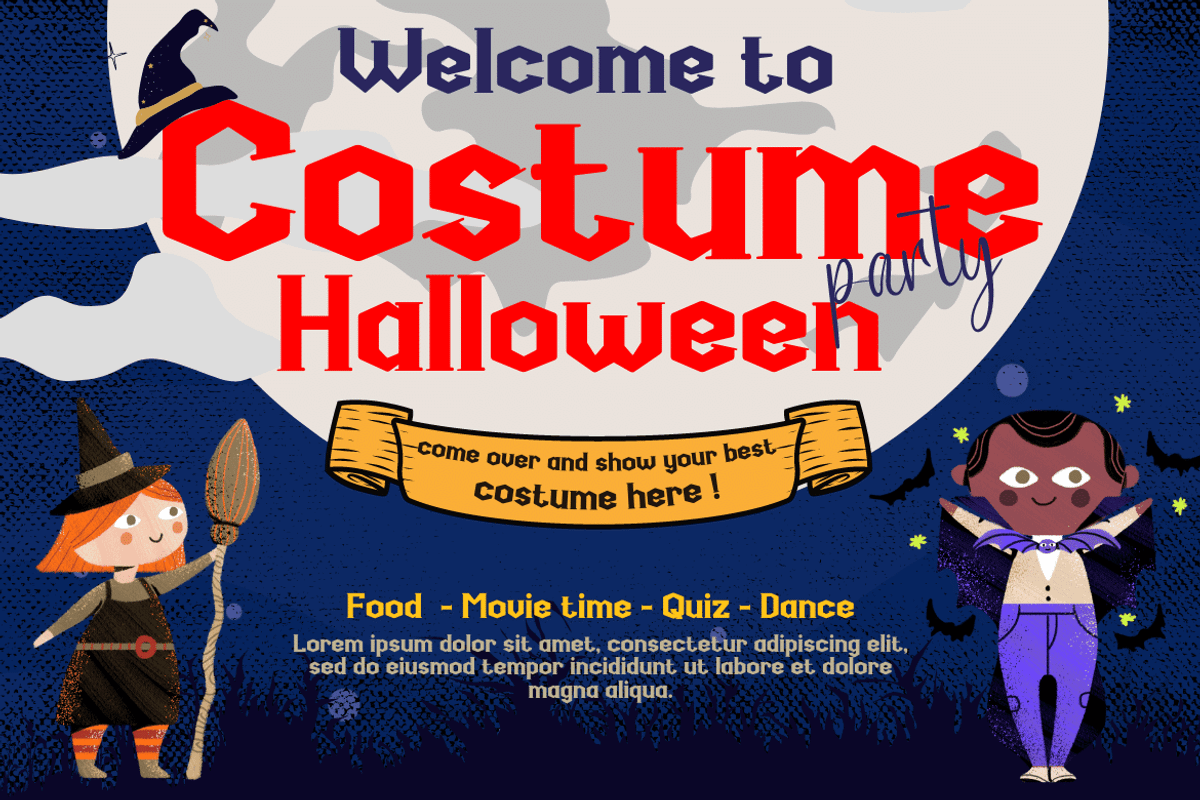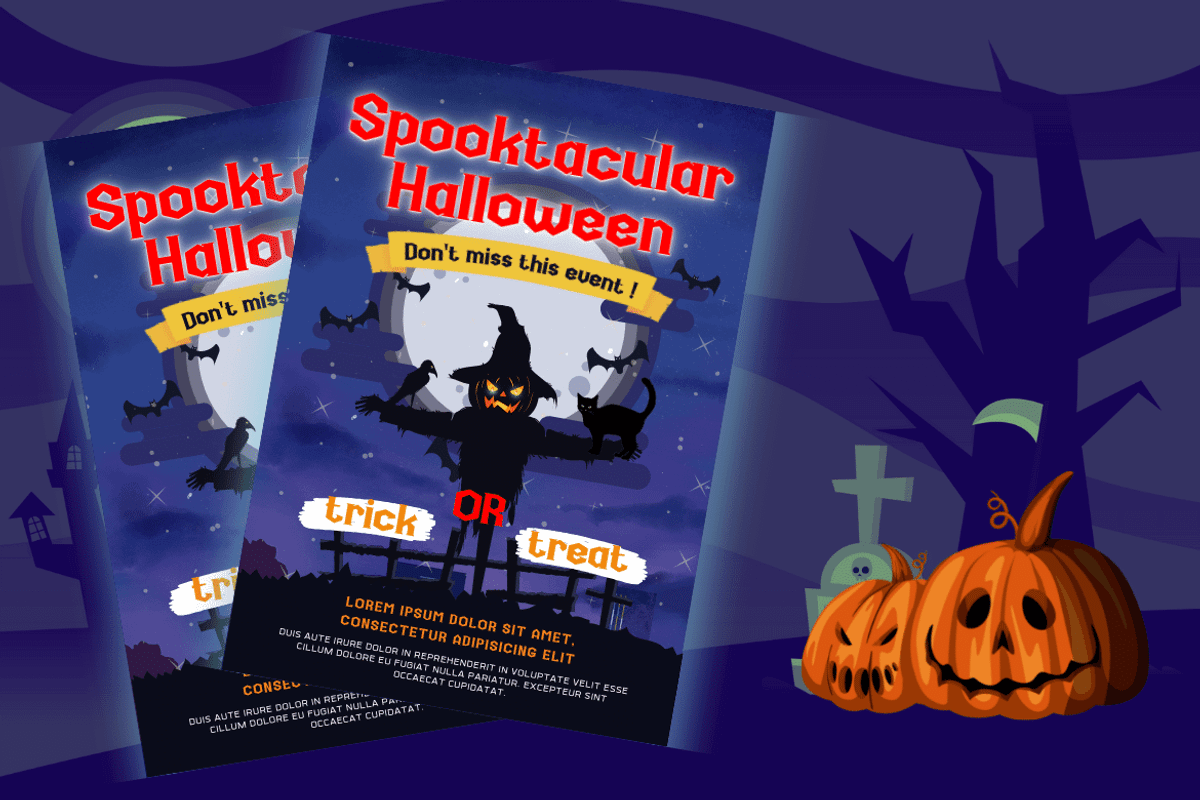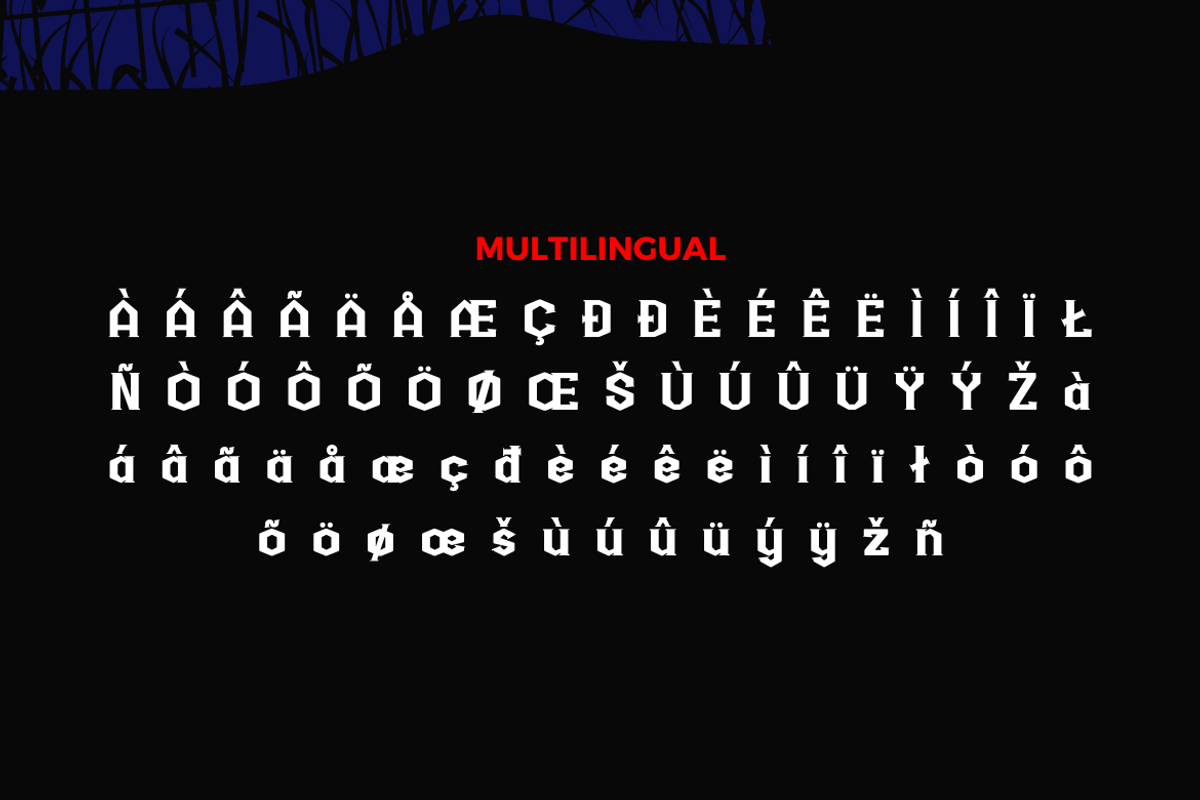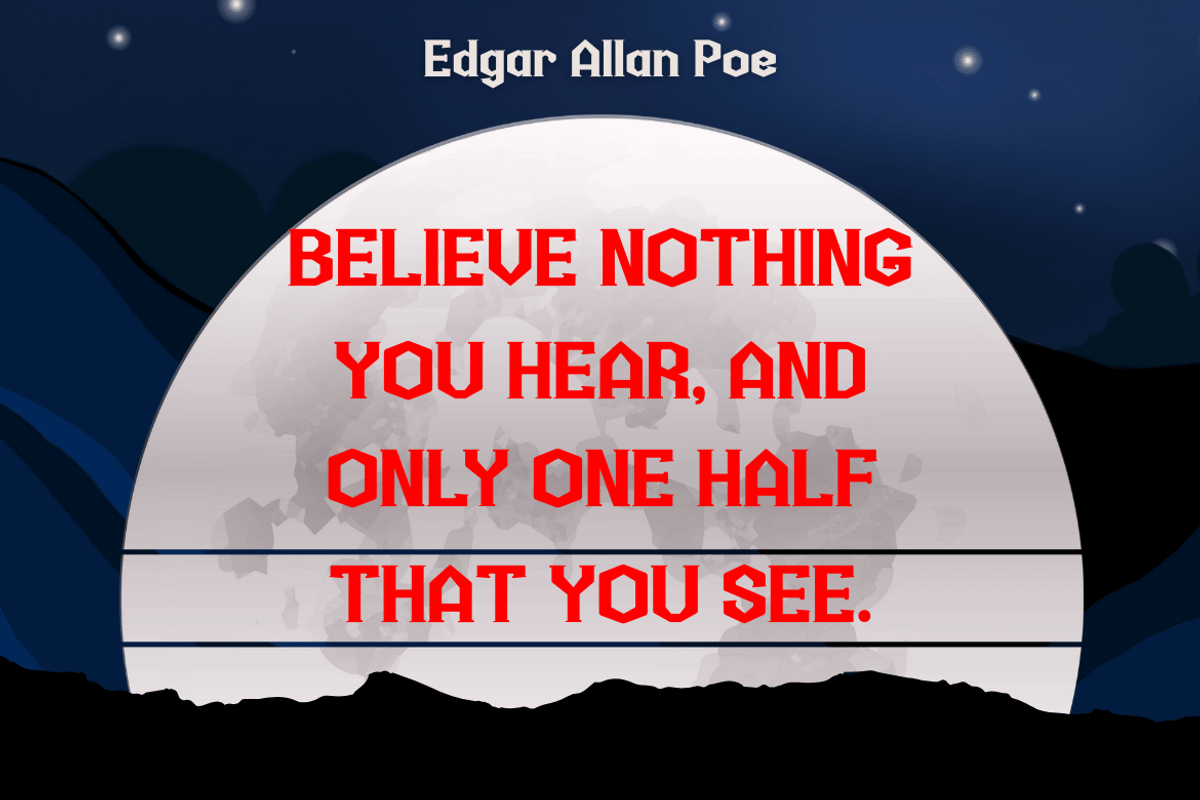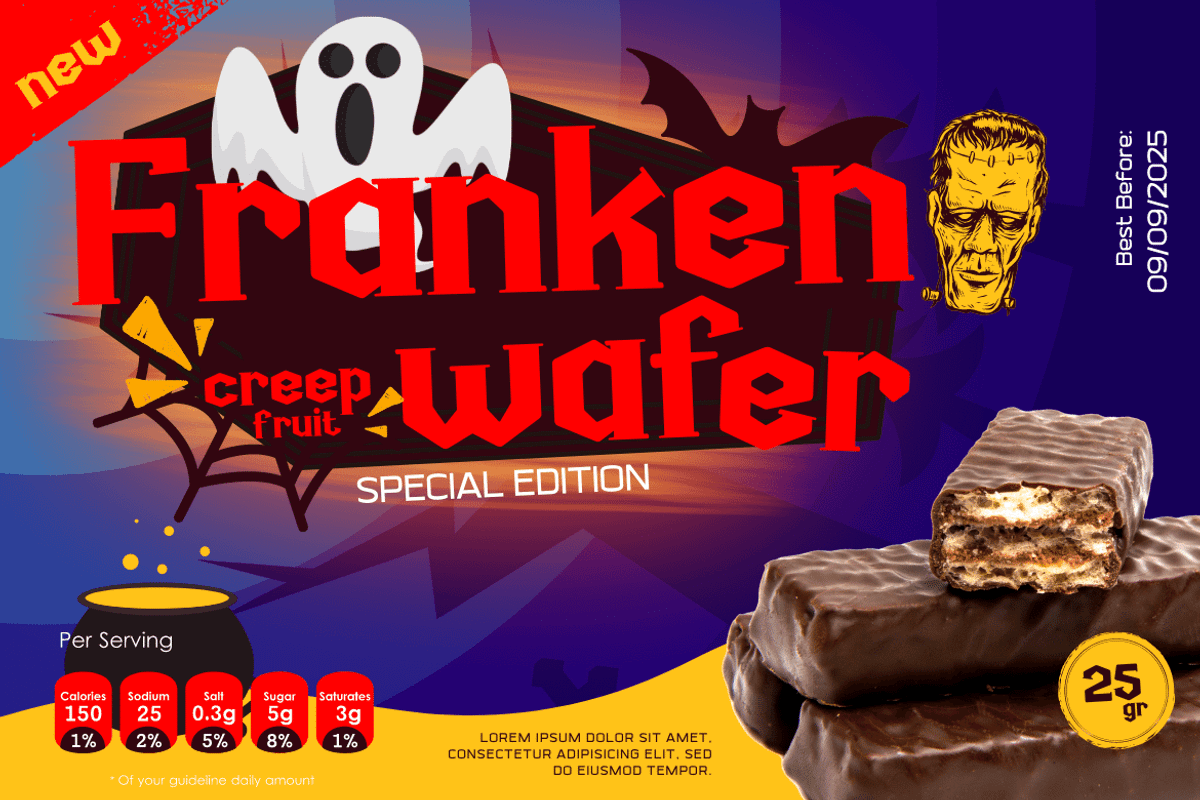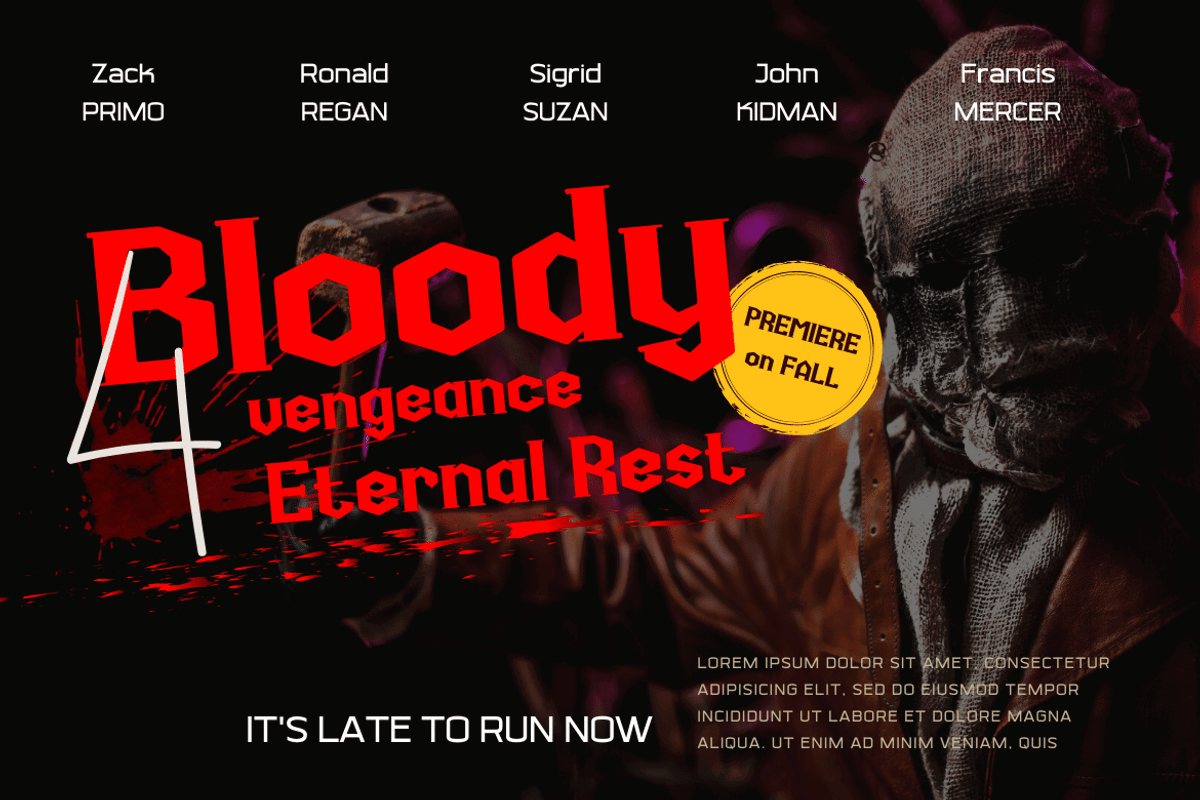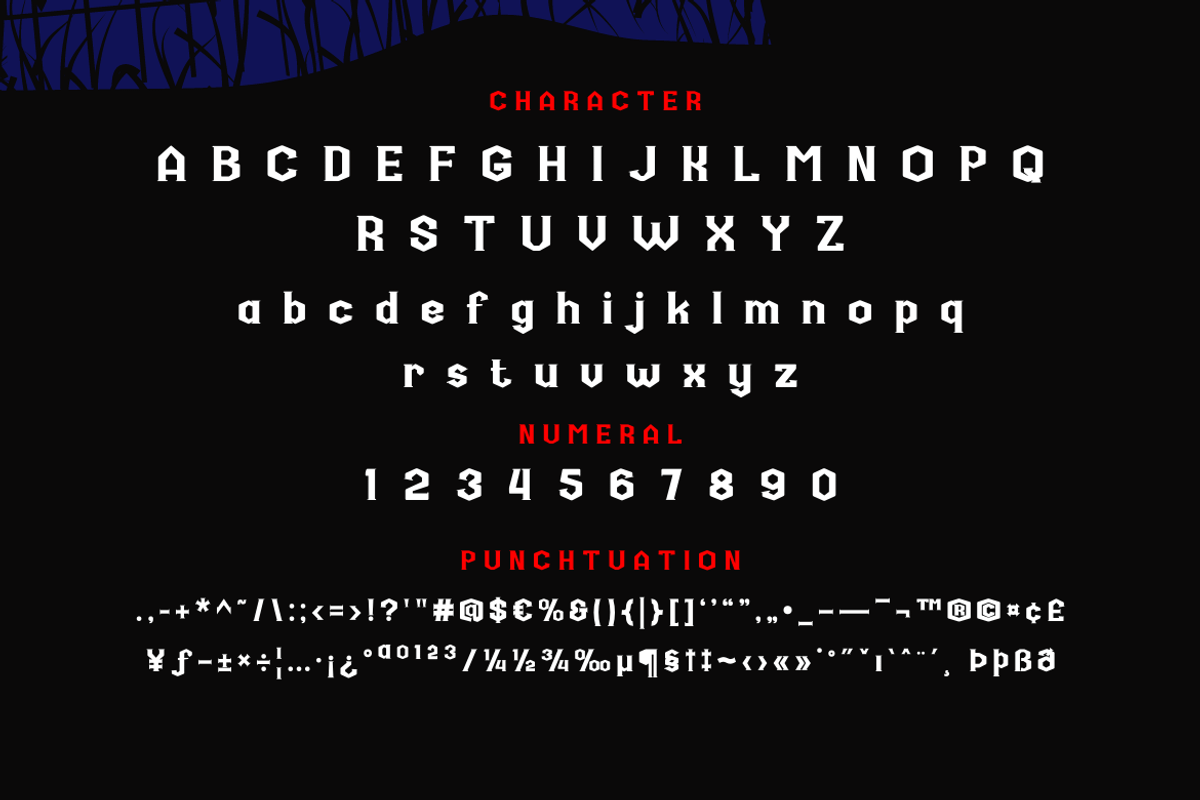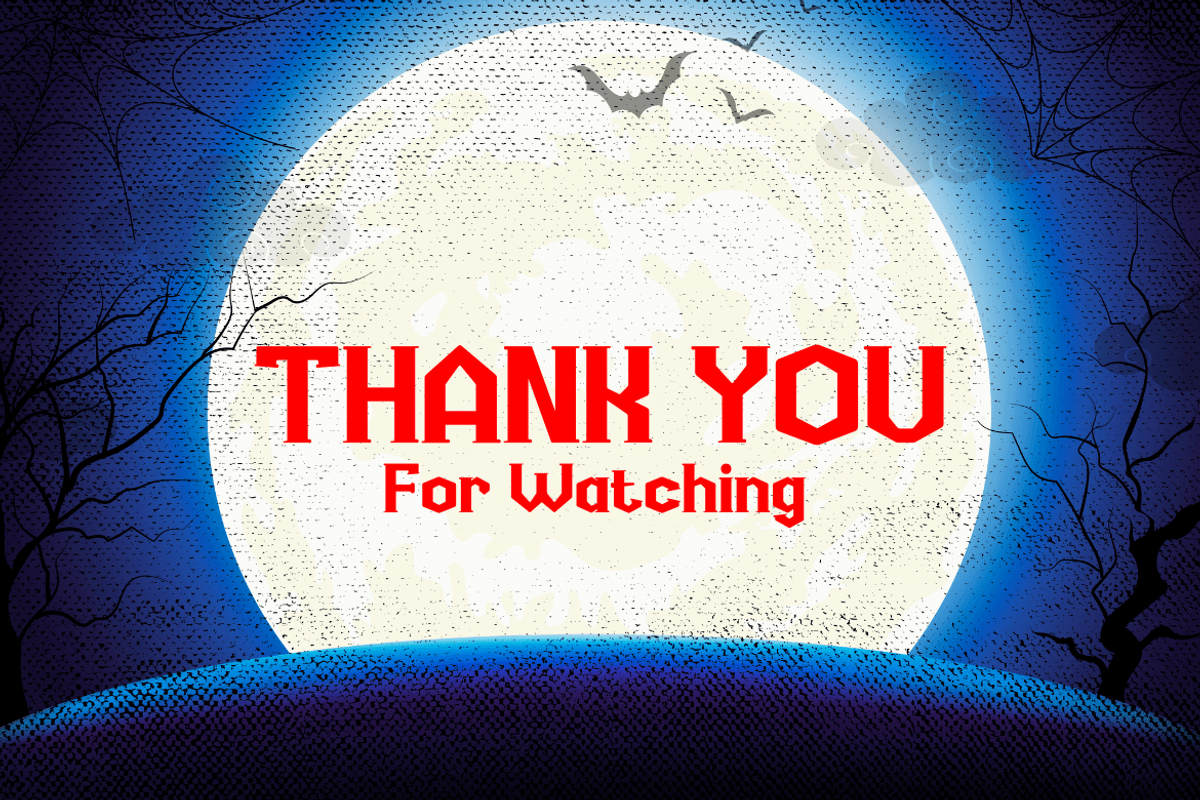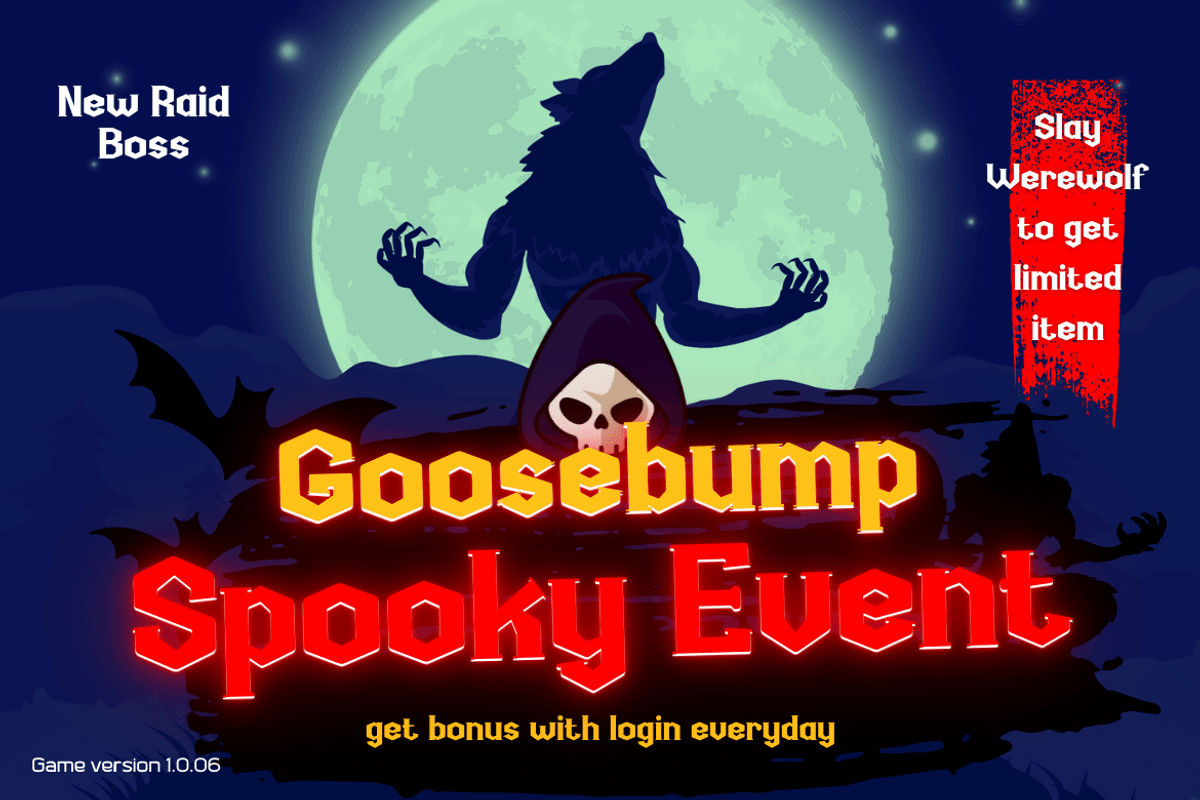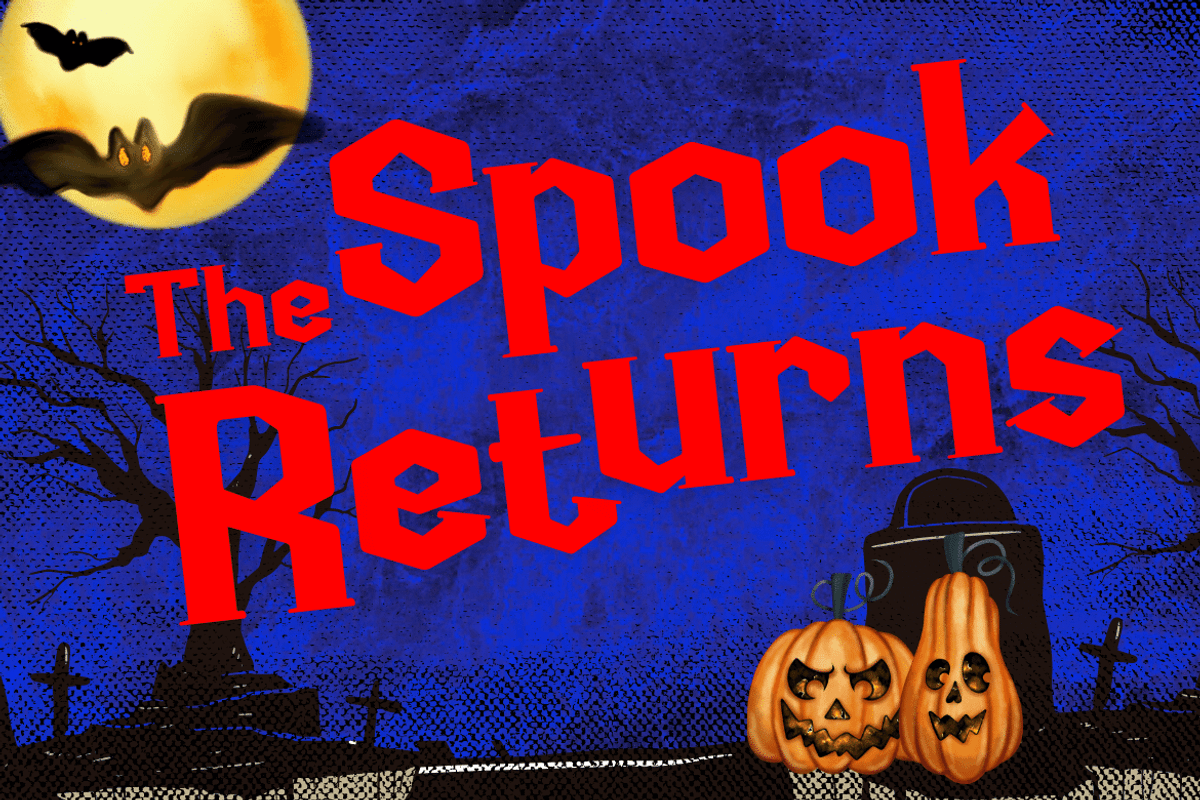
Rukinax
Choose the Rukinax font for your Halloween project. This human readable typeface is perfect for party projects, invitations, cards, posters, or whatever you want. This font is here to make your Halloween project memorable.
Of course with this font your various design projects will be perfect and amazing, get a beautiful title and start using our font for your special project.